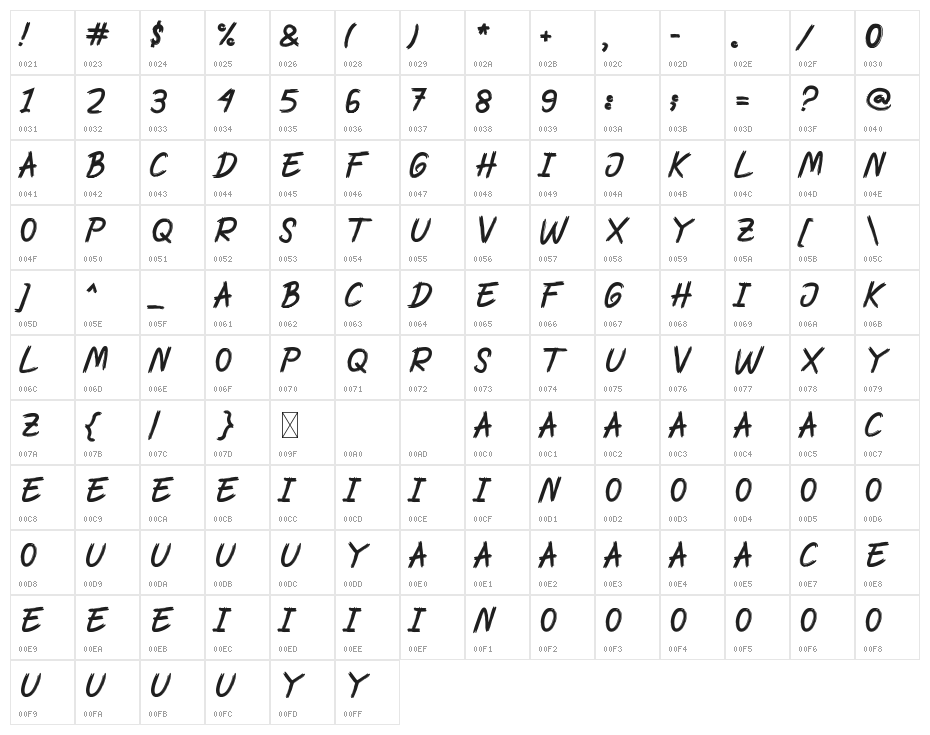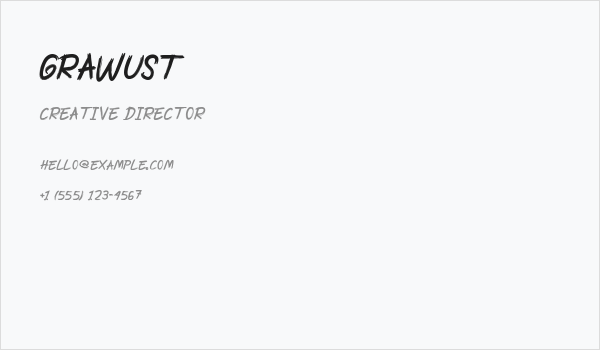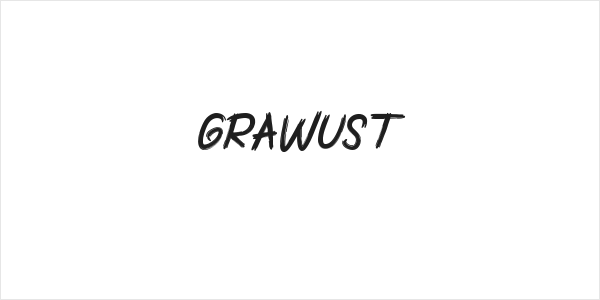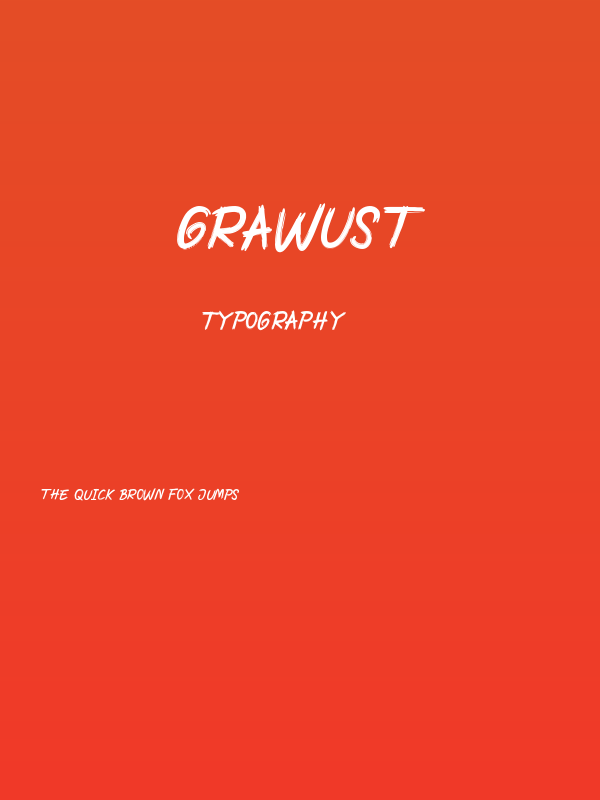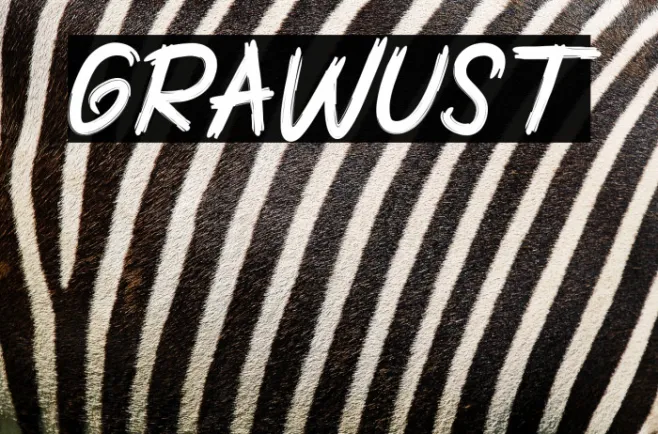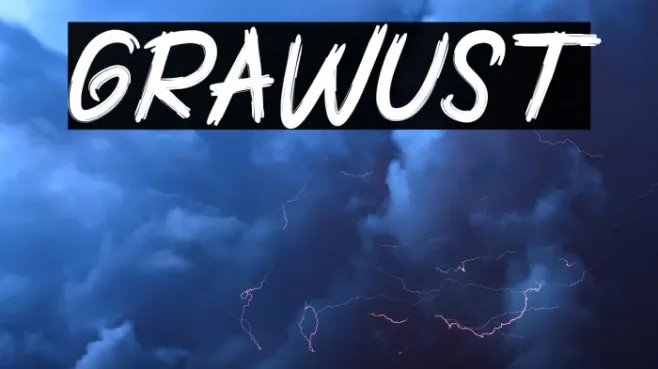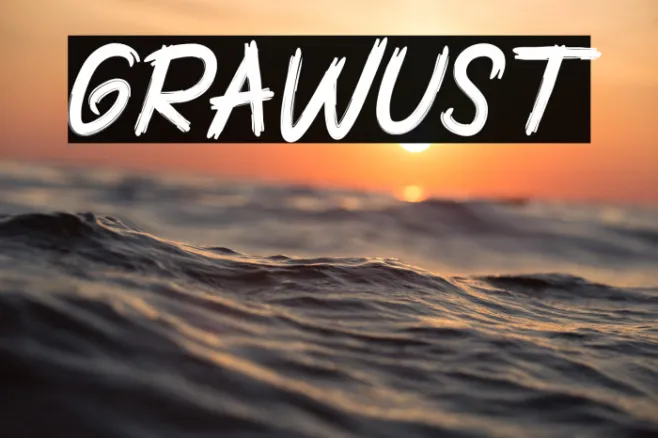
Grawust Font
Grawust Description
This font features a bold, energetic brush script style that exudes a sense of movement and dynamism. The letters are crafted with a hand-drawn appearance, characterized by thick, sweeping strokes and slightly irregular edges, giving it a lively and informal feel. The uppercase and lowercase letters maintain a consistent style, with a slight slant that enhances the sense of motion. Numbers and special characters are equally expressive, maintaining the same bold and dynamic quality. This font is ideal for projects that require a personal touch or a sense of spontaneity.
| Proposed Projects | Ideal for branding, posters, social media graphics, and any project that benefits from a personal, energetic touch. |